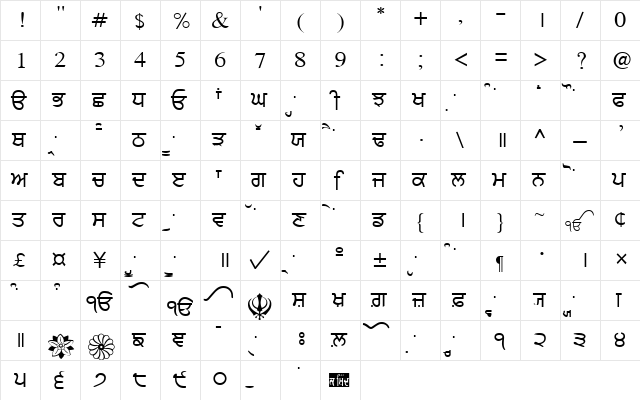
DRChatrikWeb Regular Font Preview
DRChatrikWeb Regular
Design Context for DRChatrikWeb Typeface
DRChatrikWeb takes a measured approach to typography — its balanced proportions and neutral character make it a reliable workhorse for both digital and print work.